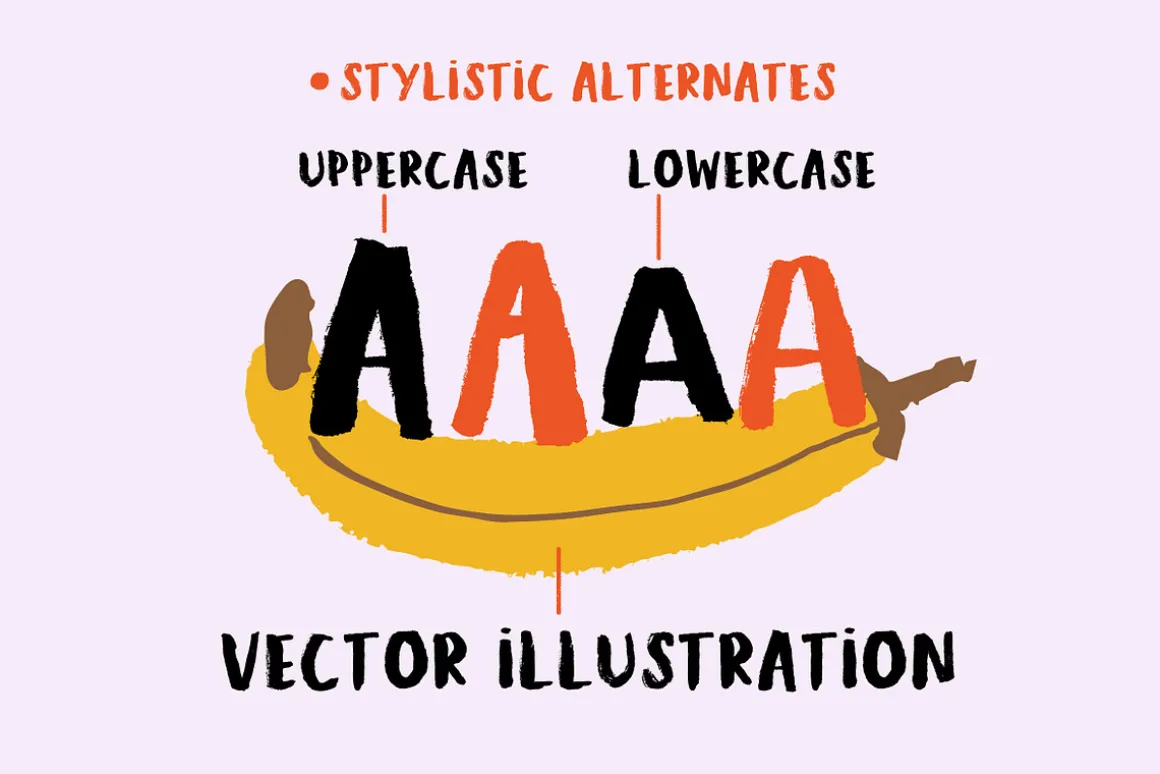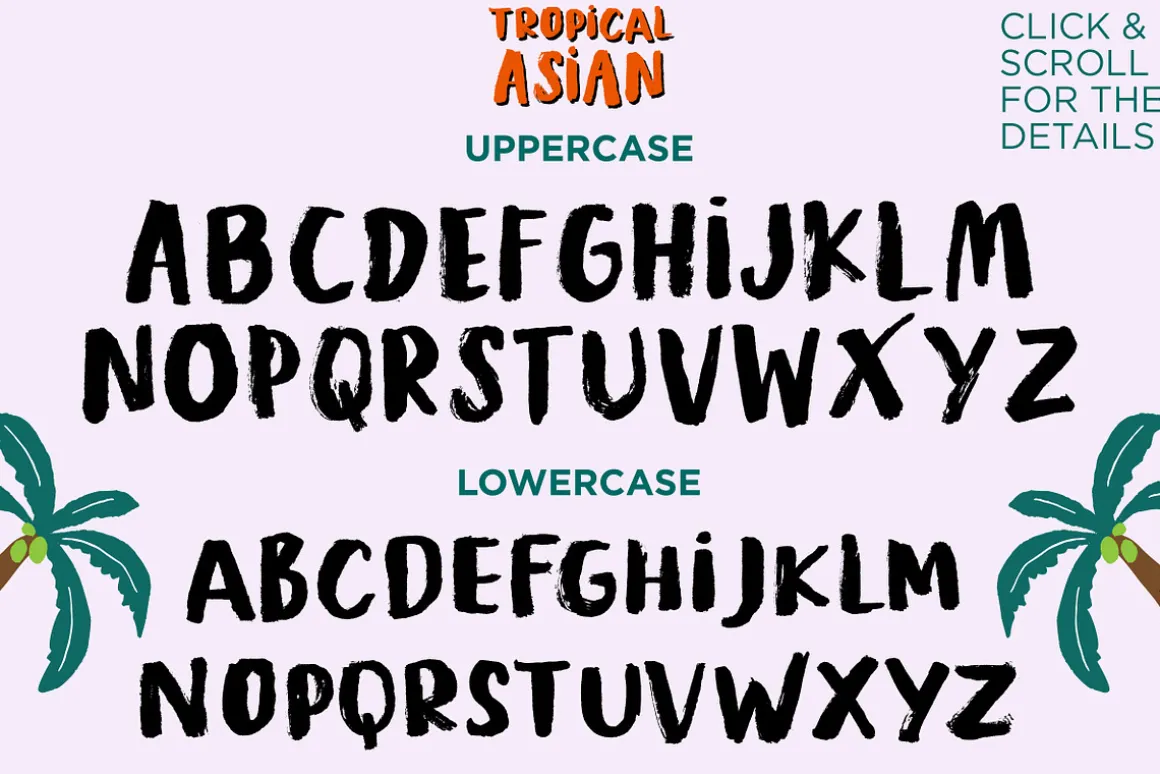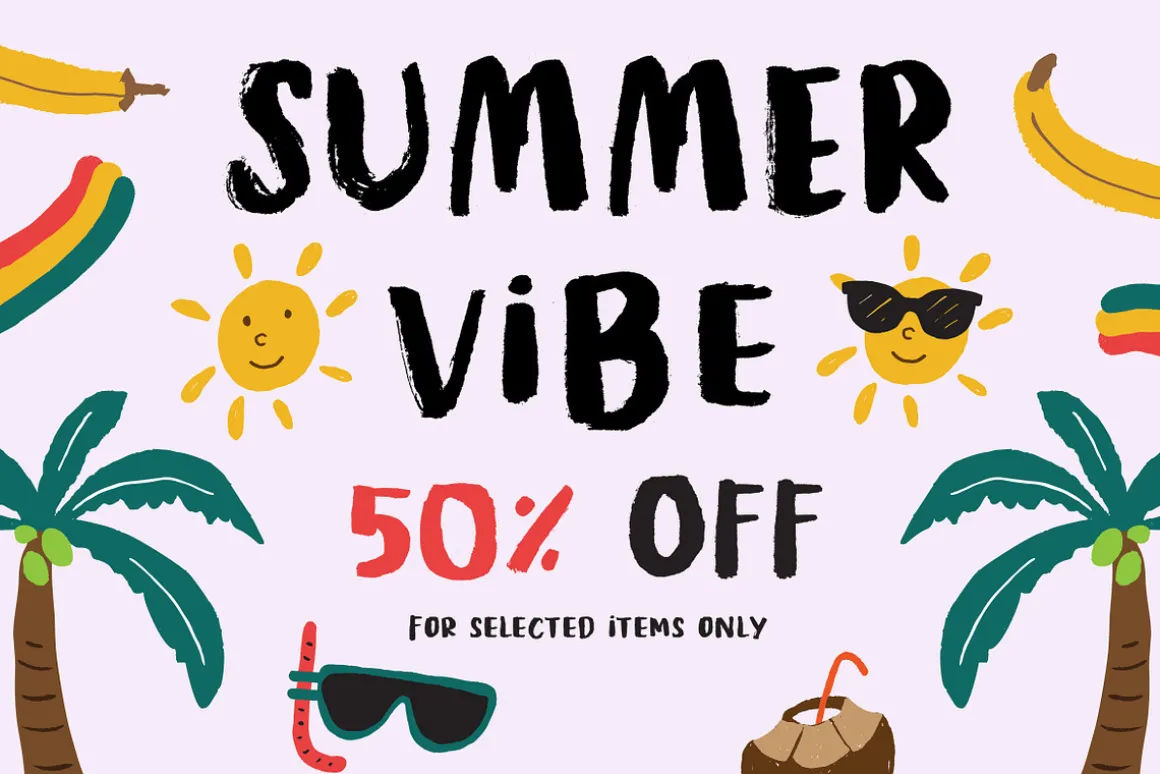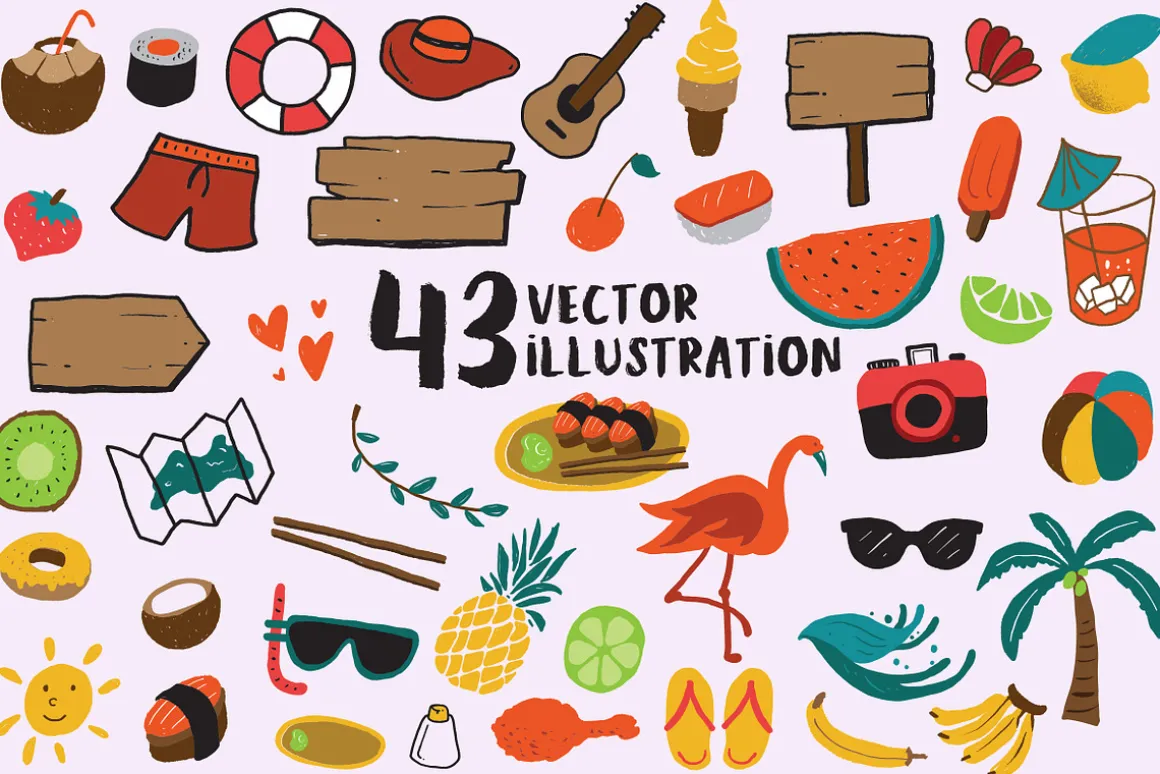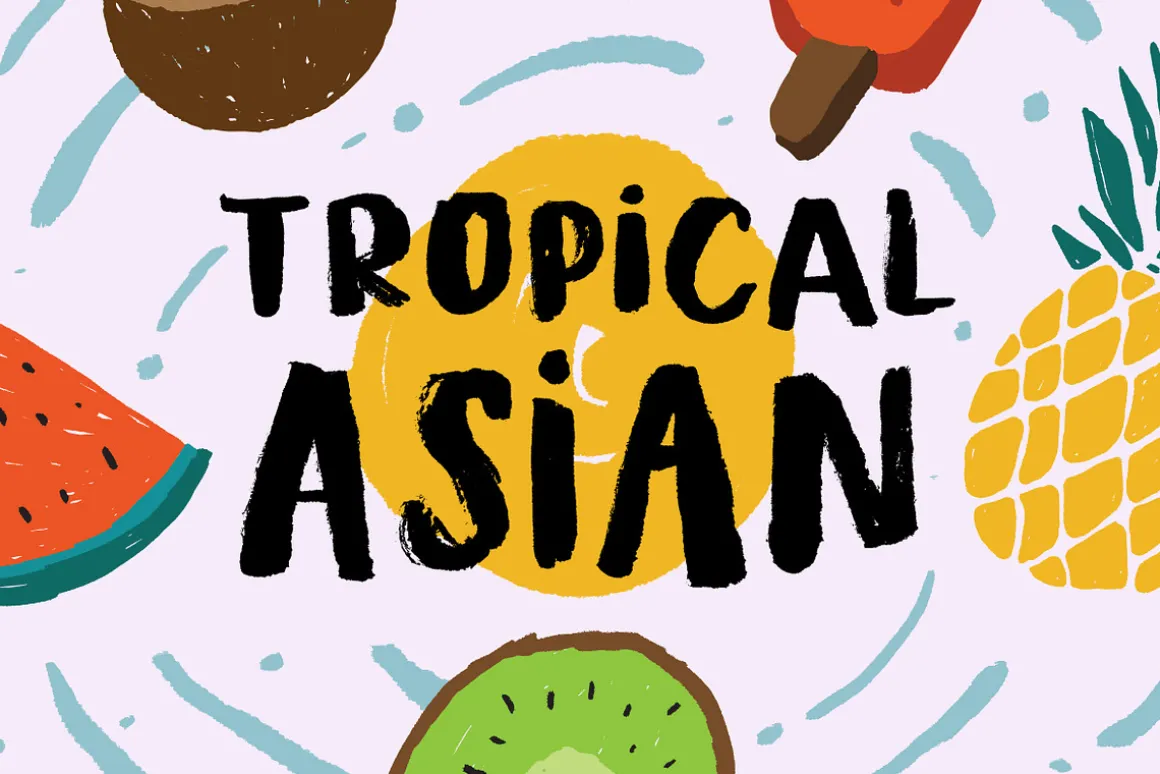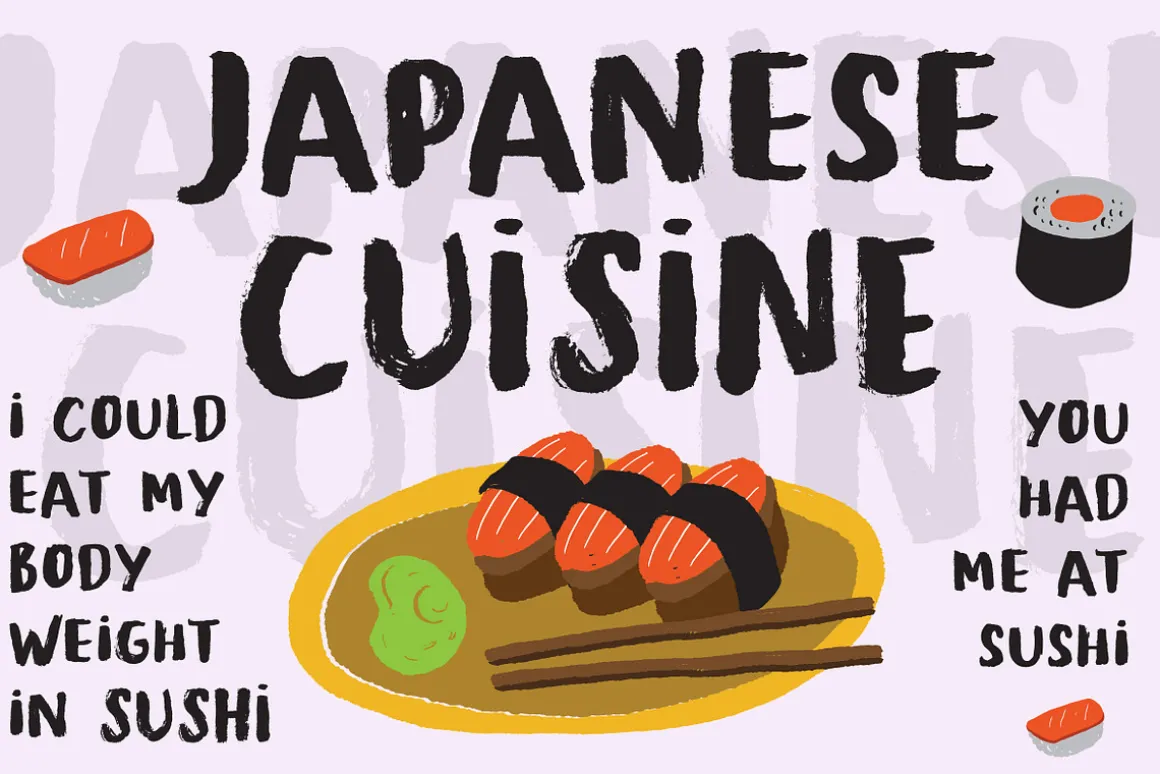
Tropical Asian, inspired from the summer vibes and the fun of careless brush and ink play in paper. Perfectly fit for welcoming summer and your casual fun branding projects.
Teamed up with the Stylistic Alternates for each Uppercase and Lowercase letters, Multilanguage Support, and Vector Illustration pack to vibin’ up this font.